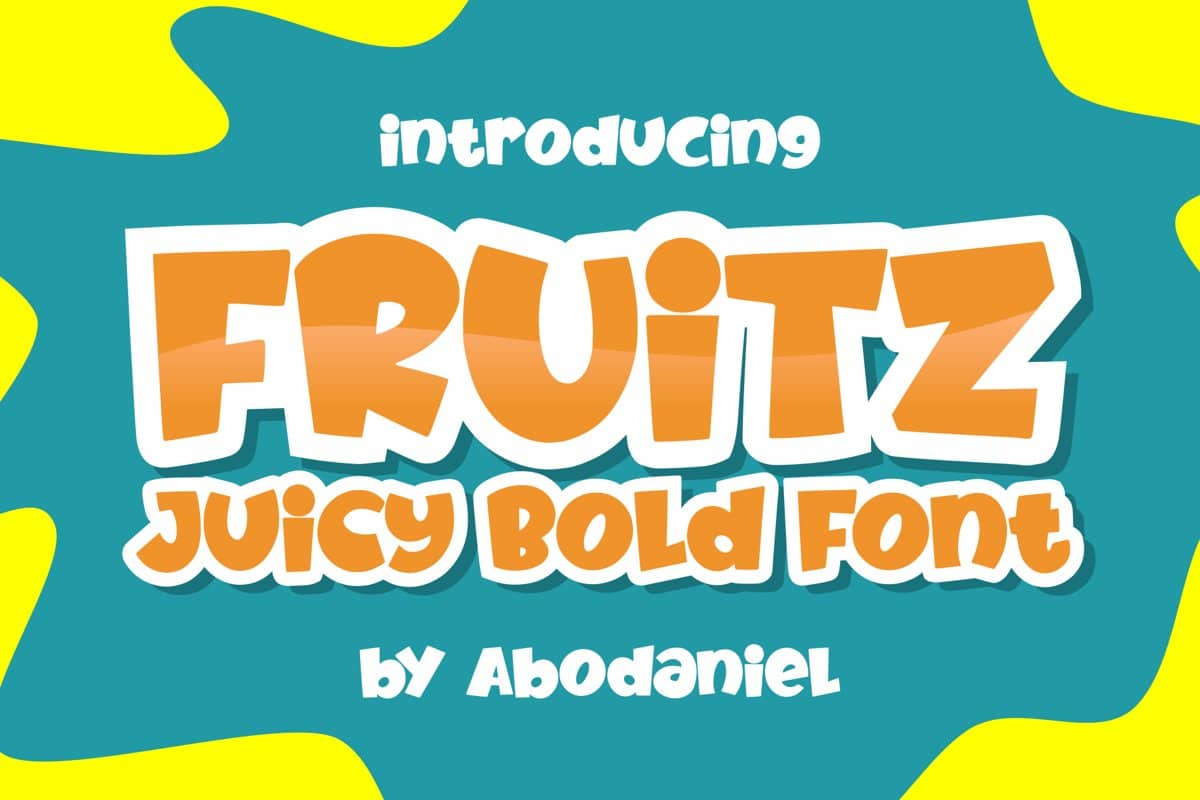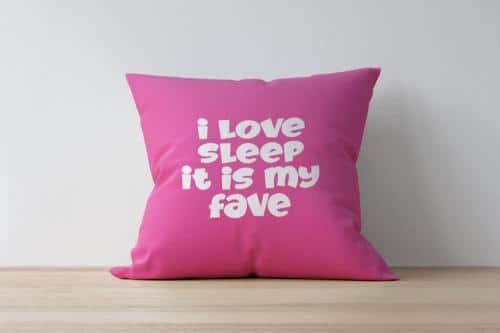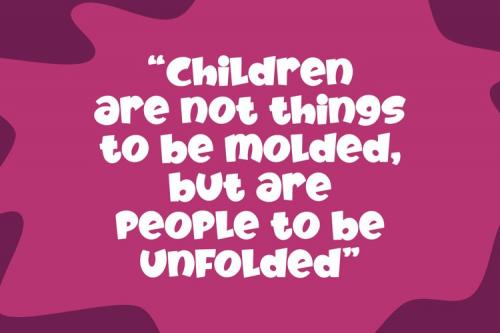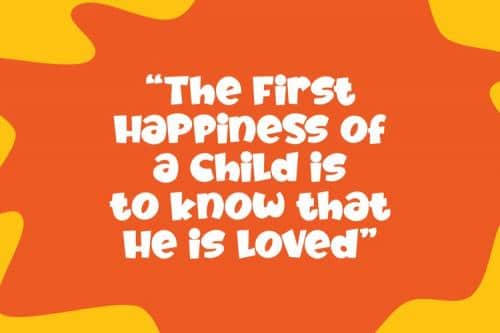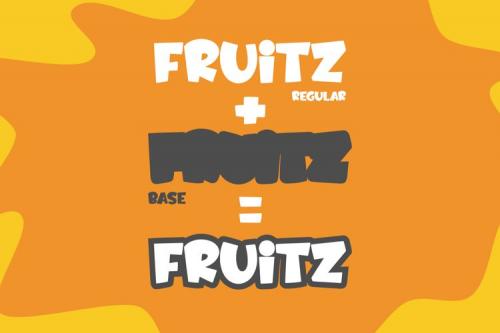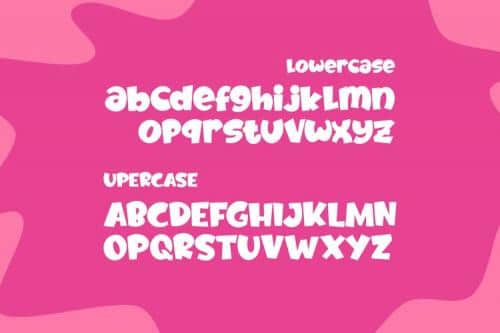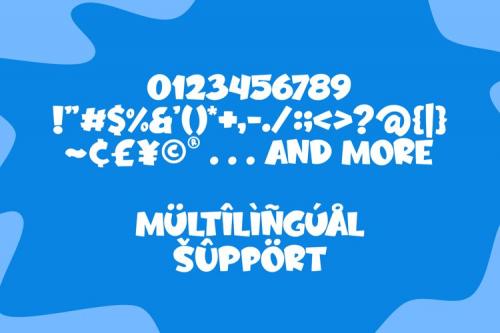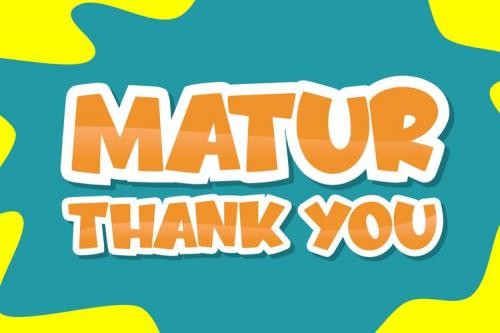
Fruitz Juicy Bold Script Font is cute and fun bold script font which suitable to use for children related occasion, designed by Abo Daniel Studio.
This fonts are great for apparel, branding, logo, magazine, quotes, packaging, advertising, and more, that need cheerful feel.
Its came with uppercase, lowercase, punctuations, symbols & numerals.
Also support multilingual and already PUA encoded. Fruit Doodles are completed this font family.